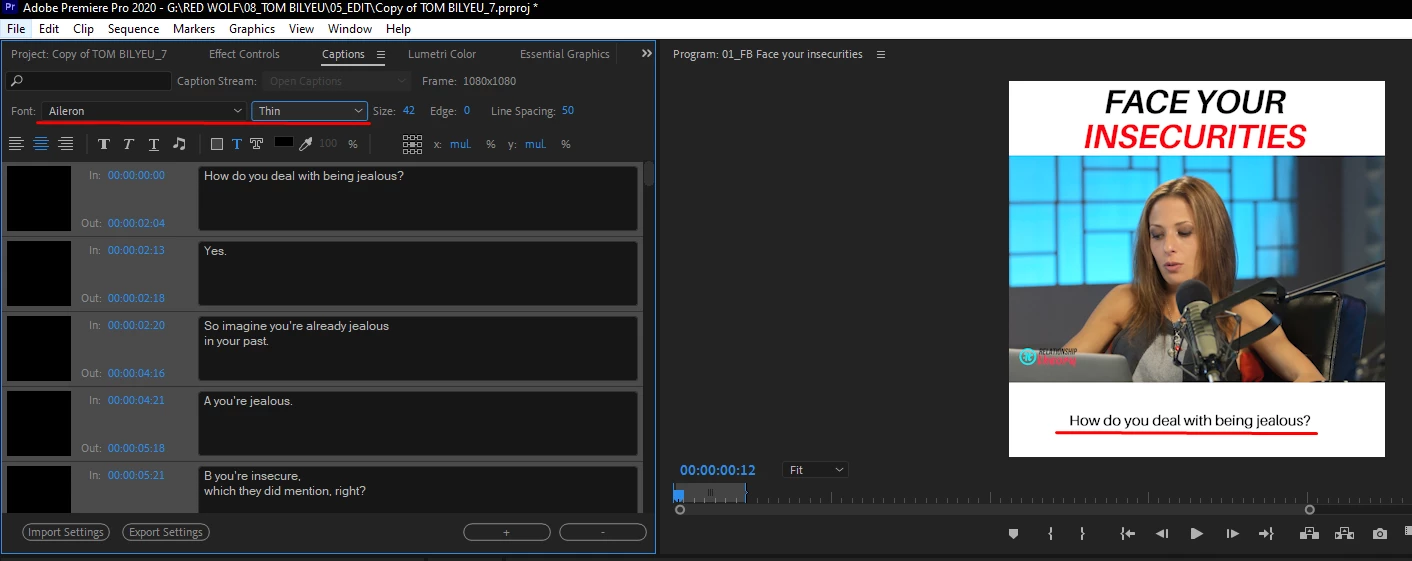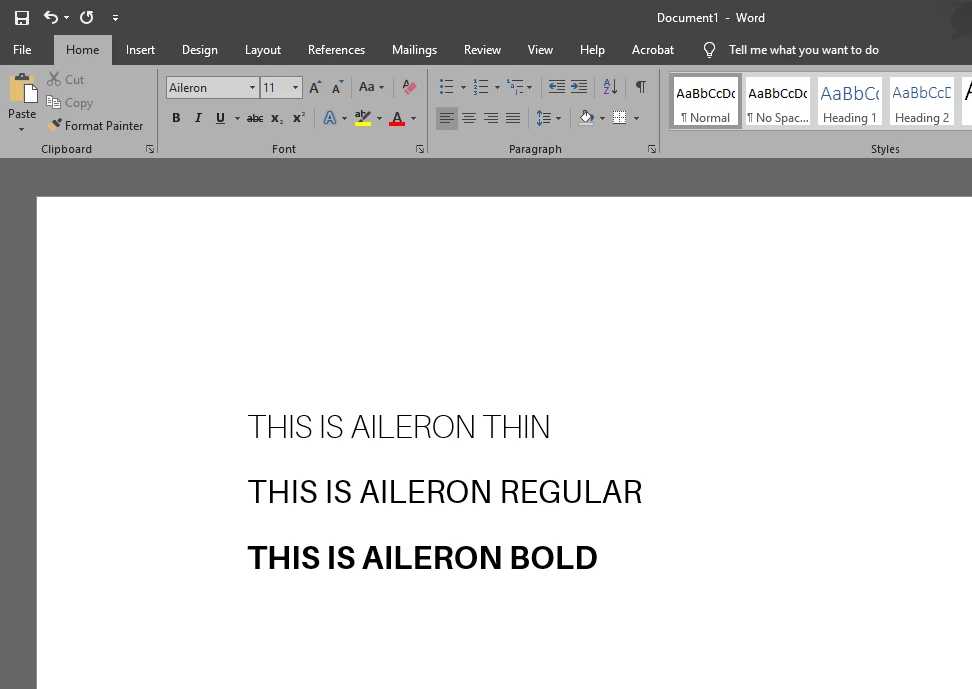
Font doesn't work in open caption
Hello, I'm using adobe premiere latest version. I'm having issues with open captions when I try to change a font to Aileron thin/regular/etc it doesn't change it.
Some fonts are simply not supported. We do not have a comprehensive list.
I added the thin and regular versions of that font to my system to test. It is immediately available to use in Graphics text. It does not show in the list of fonts in the caption tool. I closed and reopened the project; then restarted PR, options that will sometimes help.
I was able to select Aileron in the caption panel. It is very similar to Arial, which is probably the default. And the default gets used when a font is not used by captions.
I definitely did not get the change from regular to thin in captions, but get the change in Graphics text.
Short answer, No, but there are scripts that may help. The developers are redoing the entire caption workflow using graphics text, but not ready for prime time.
Some fonts are simply not supported. We do not have a comprehensive list.
I added the thin and regular versions of that font to my system to test. It is immediately available to use in Graphics text. It does not show in the list of fonts in the caption tool. I closed and reopened the project; then restarted PR, options that will sometimes help.
I was able to select Aileron in the caption panel. It is very similar to Arial, which is probably the default. And the default gets used when a font is not used by captions.
I definitely did not get the change from regular to thin in captions, but get the change in Graphics text.
Do you know if there is a way to change the captions to graphics text?